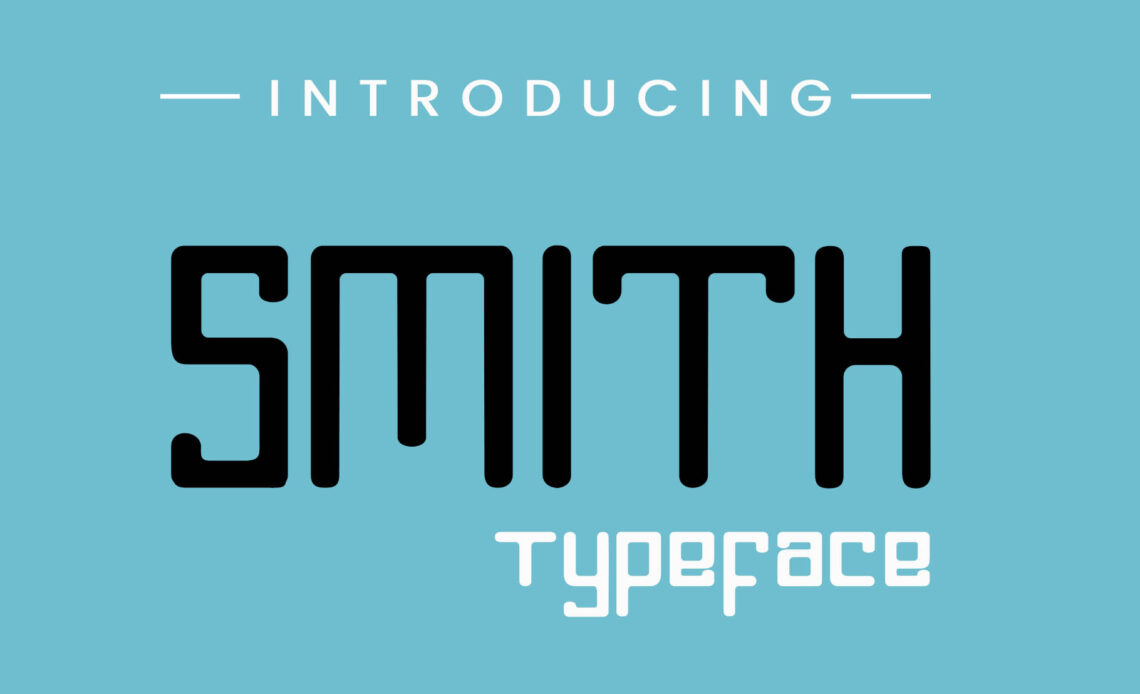
Venture into the world of visual enticement with Smith Font, a display font that captivates attention and sparks imagination. Designed by the creative minds at Gumacreative, Smith Font belongs to the display font family, a realm of boundless possibilities. This captivating font elevates your designs, making them leap off the screen and into the hearts of your audience.
Smith Font possesses an inherent charm that makes it a perfect fit for logotypes. Its bold and commanding presence ensures that your brand's message is conveyed with utmost clarity and impact. The font's ability to shine in large formats is nothing short of remarkable. Whether you're creating posters, billboards, or eye-catching headlines, Smith Font commands attention and leaves a lasting impression.
Unleash your creativity and explore the endless possibilities that Smith Font has to offer. This versatile font adds a touch of sophistication to wedding invitations and breathes life into social media posts. It lends an air of elegance to letterheads and business cards, making your professional communication stand out from the crowd.
The beauty of Smith Font lies in its ability to resonate with diverse audiences. Its distinctive style appeals to those seeking a font that exudes personality and charm. Whether you're a designer crafting captivating visuals or an individual seeking to add a unique touch to your personal projects, Smith Font is the perfect choice.
Embark on a creative journey with Smith Font and witness the transformation of your designs. Let your imagination soar and create visuals that captivate and inspire. Open the door to a world of endless possibilities and make a statement that resonates with your audience. Smith Font is more than just a font; it's a key to unlocking your creative potential.